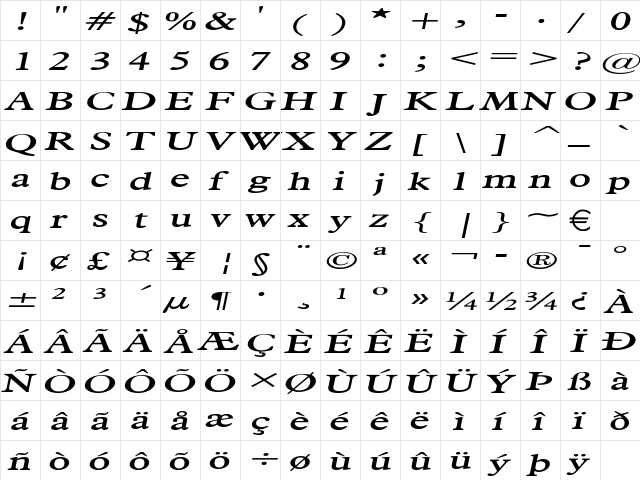
NadineWide Italic
Design Context for NadineWide Typeface
NadineWide is a composed and adaptable typeface that performs quietly and consistently across a wide range of design contexts. The dynamic lean of this cut emphasises speed and emphasis in any layout.
Pro Tip: Try NadineWide for annotation and caption copy alongside an upright companion — the contrast in angle creates a dynamic but ordered typographic system.